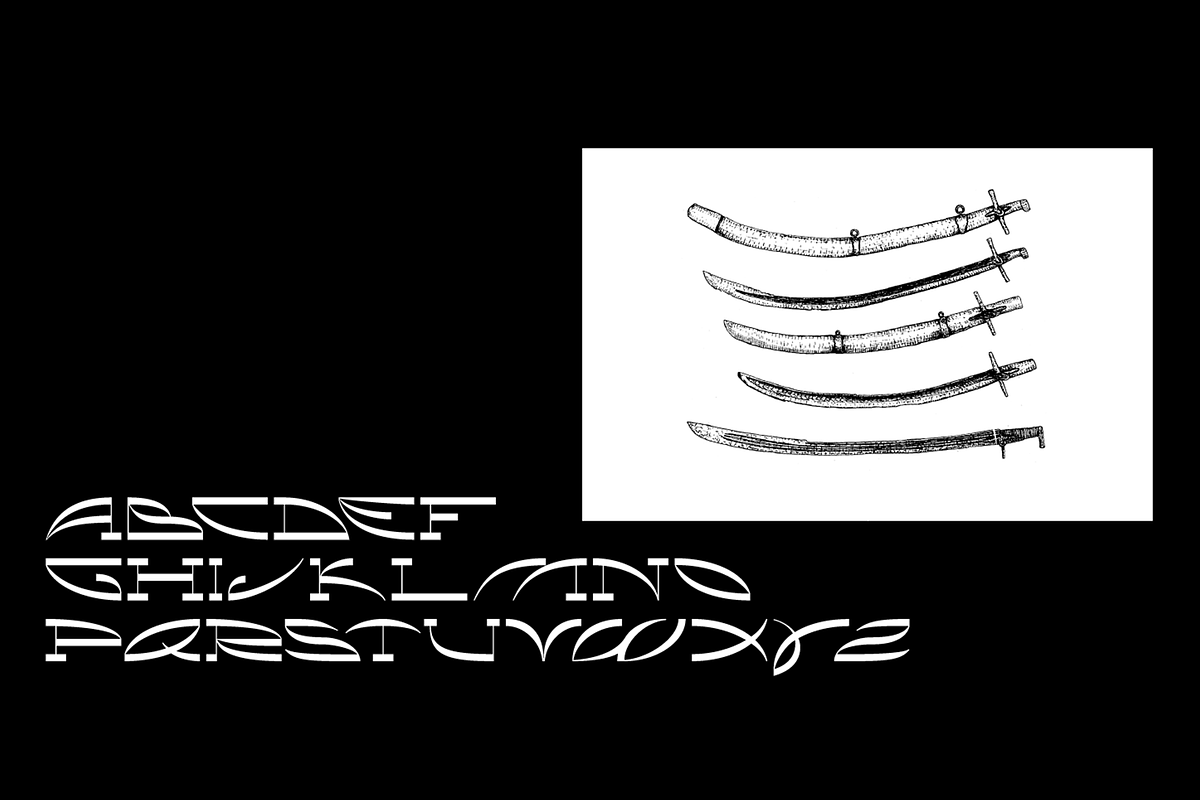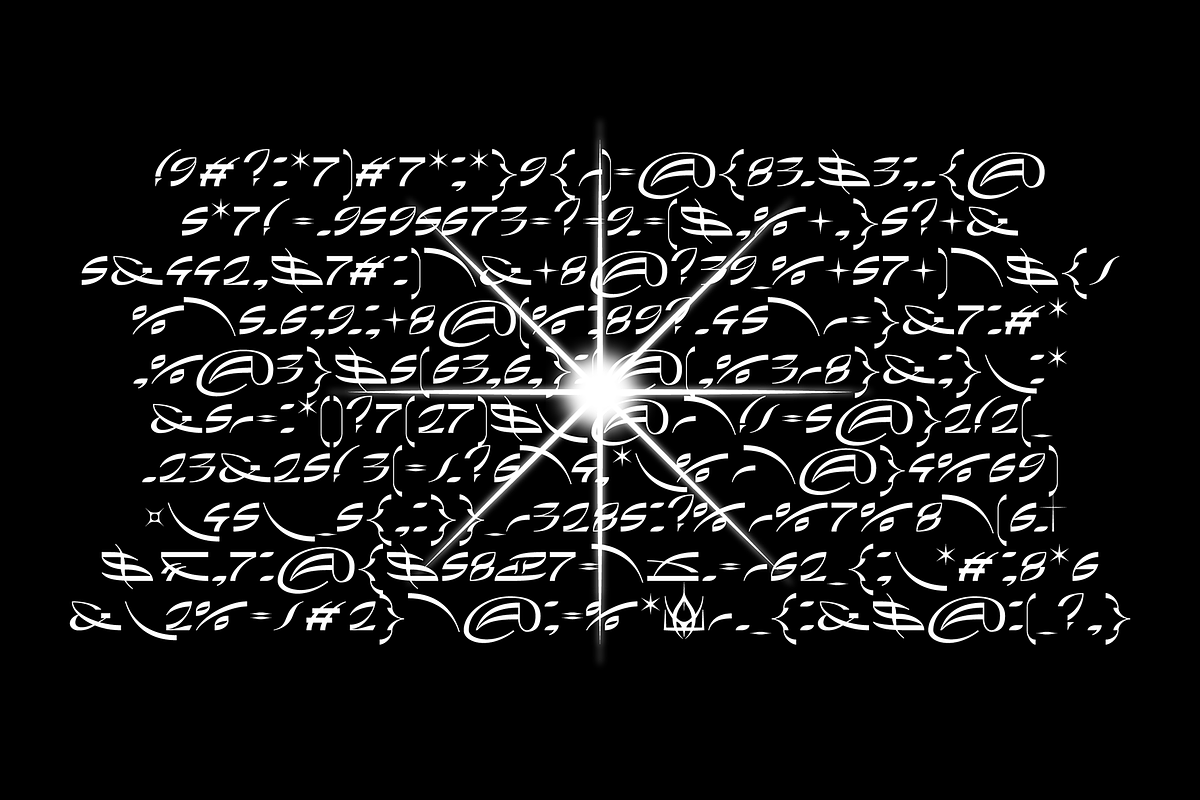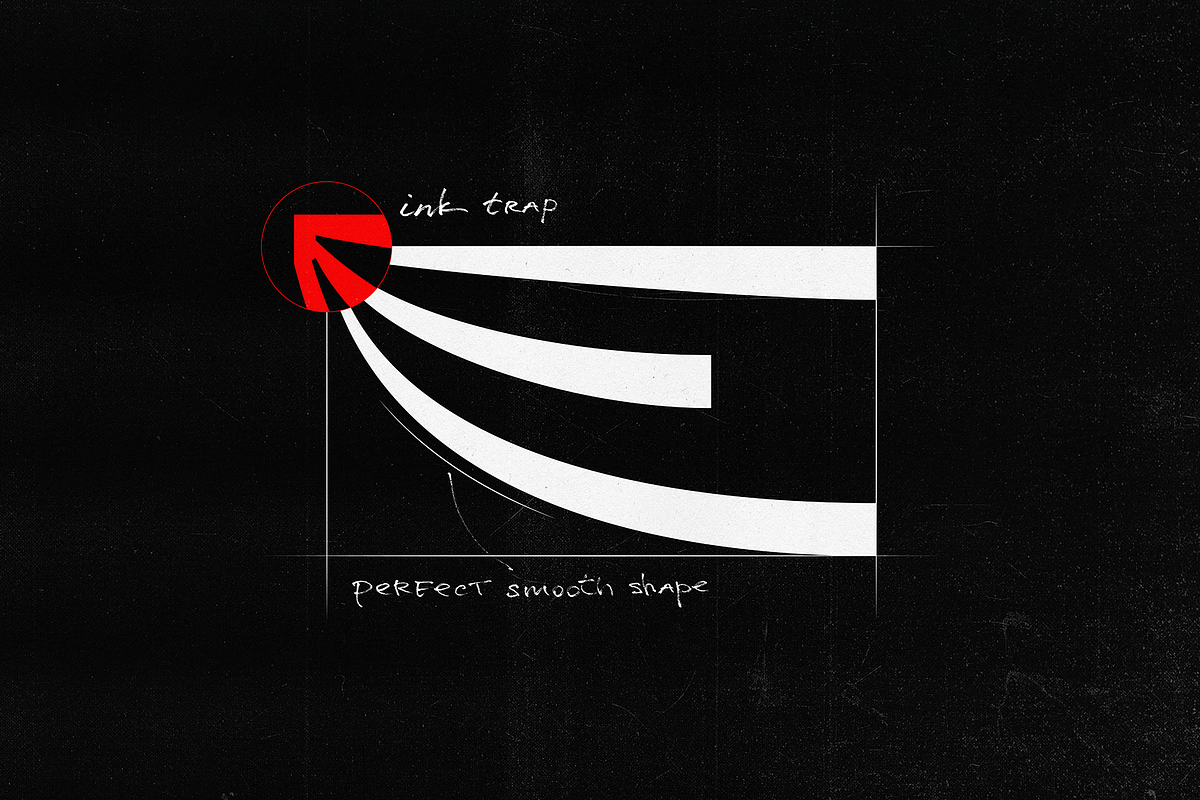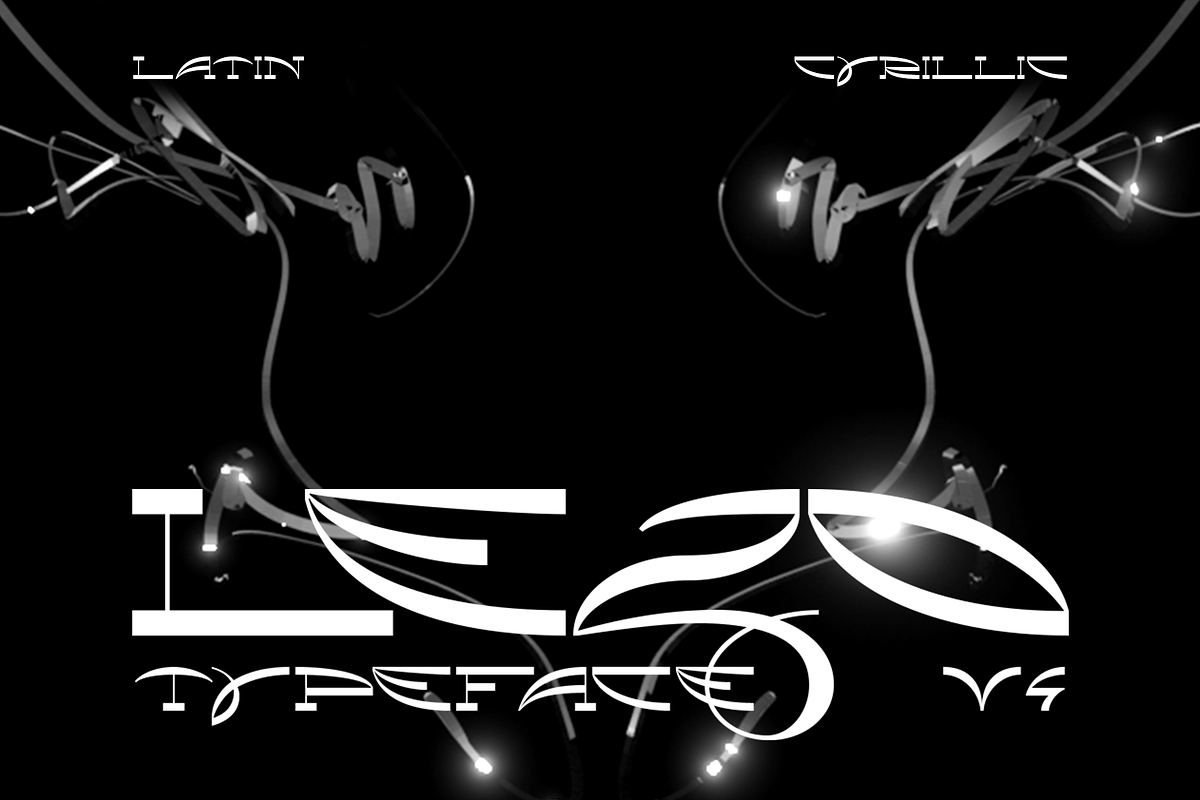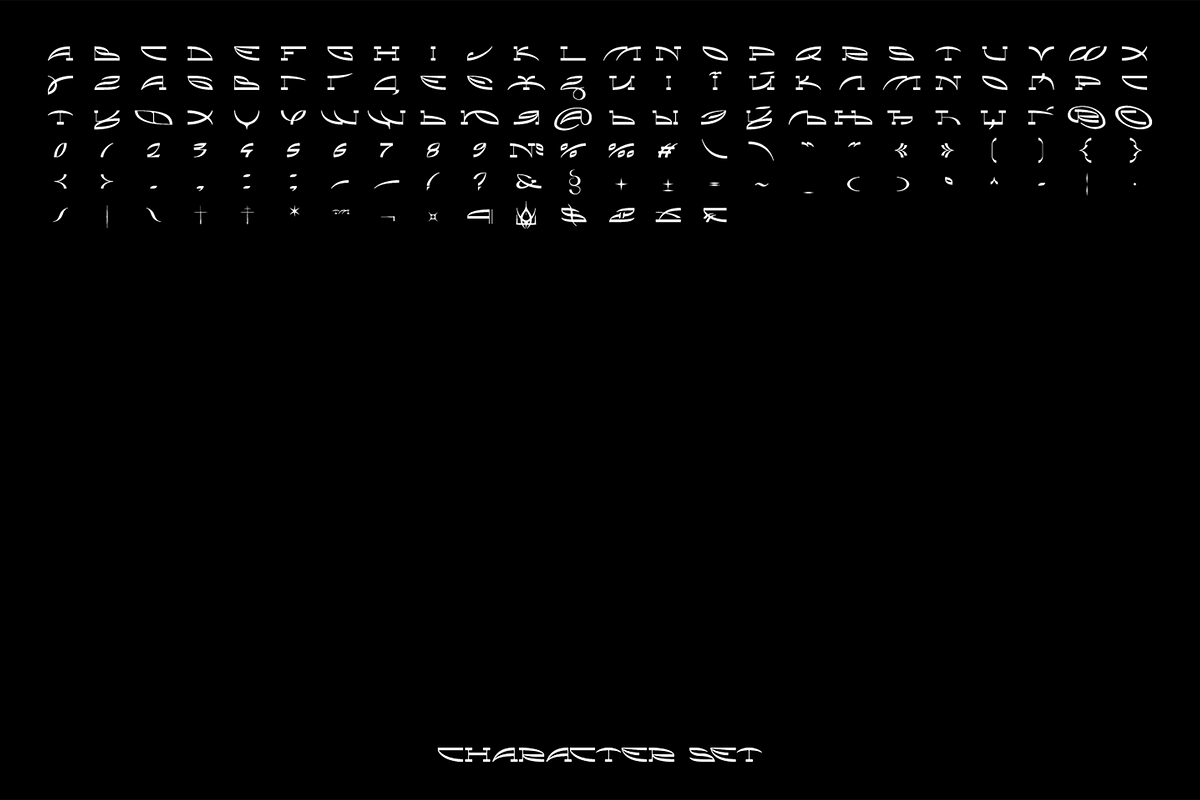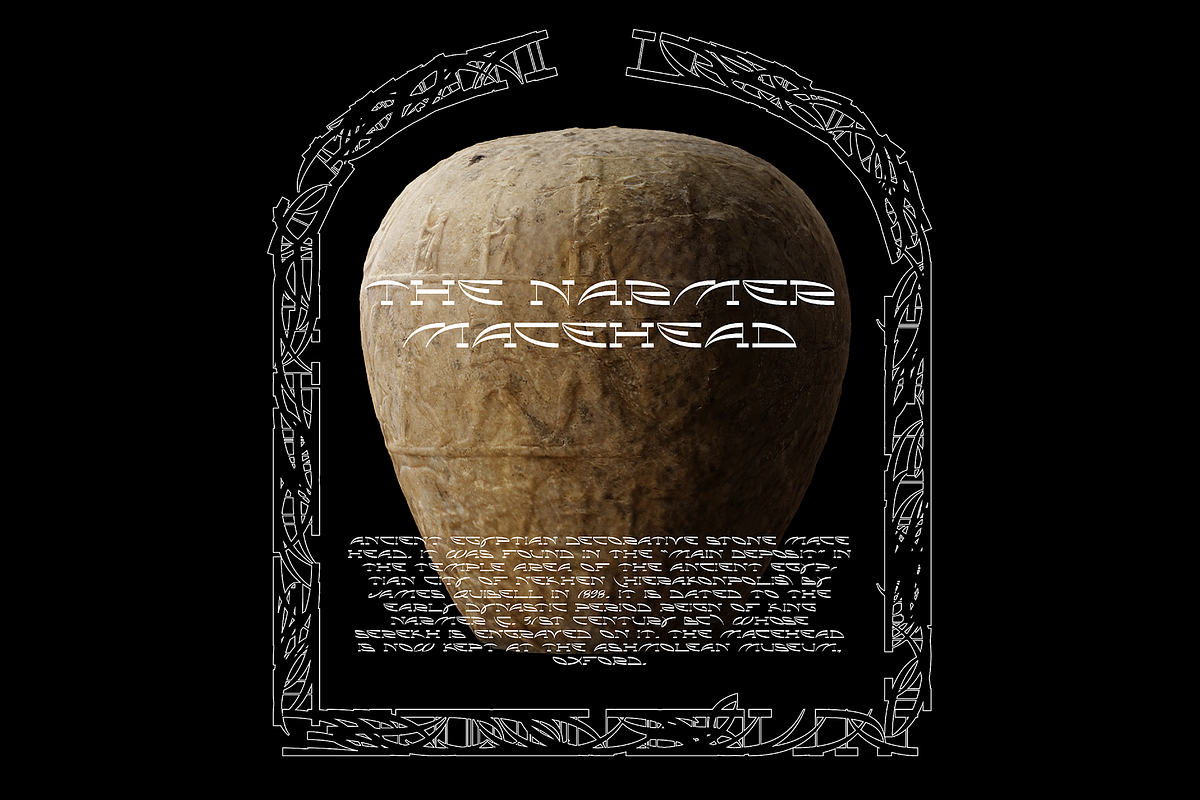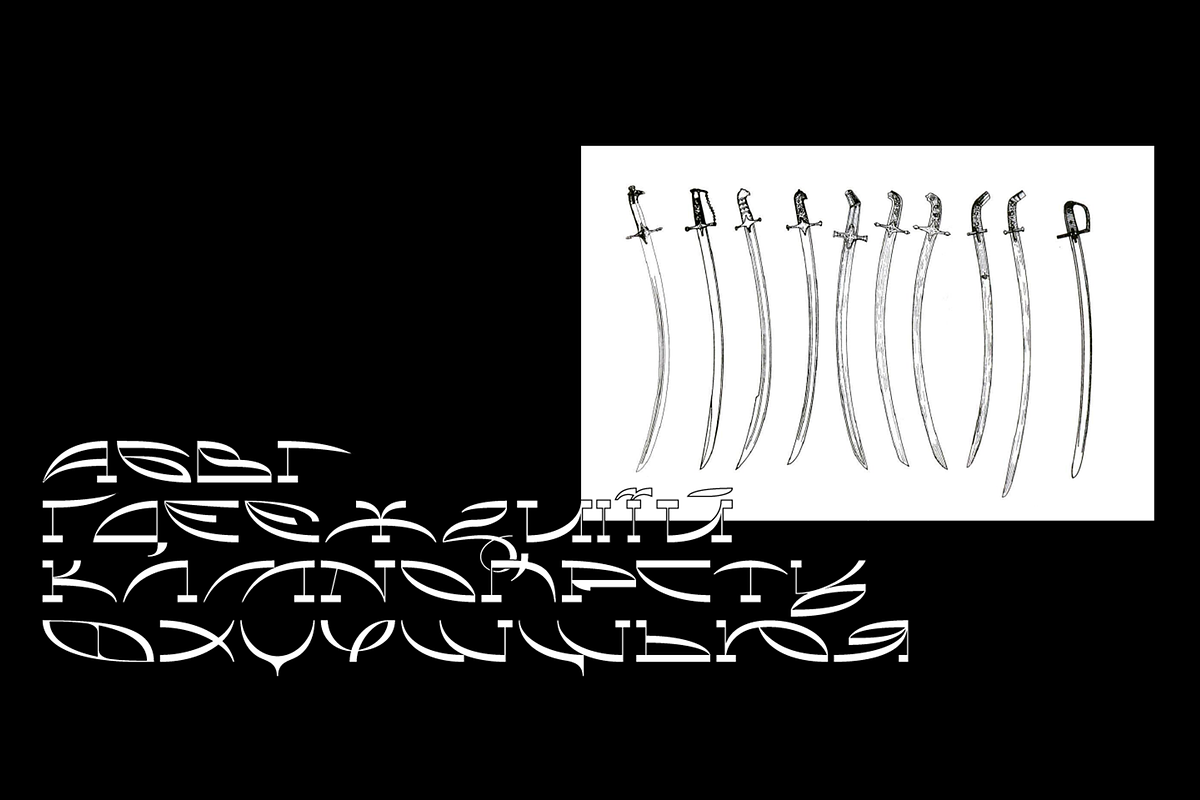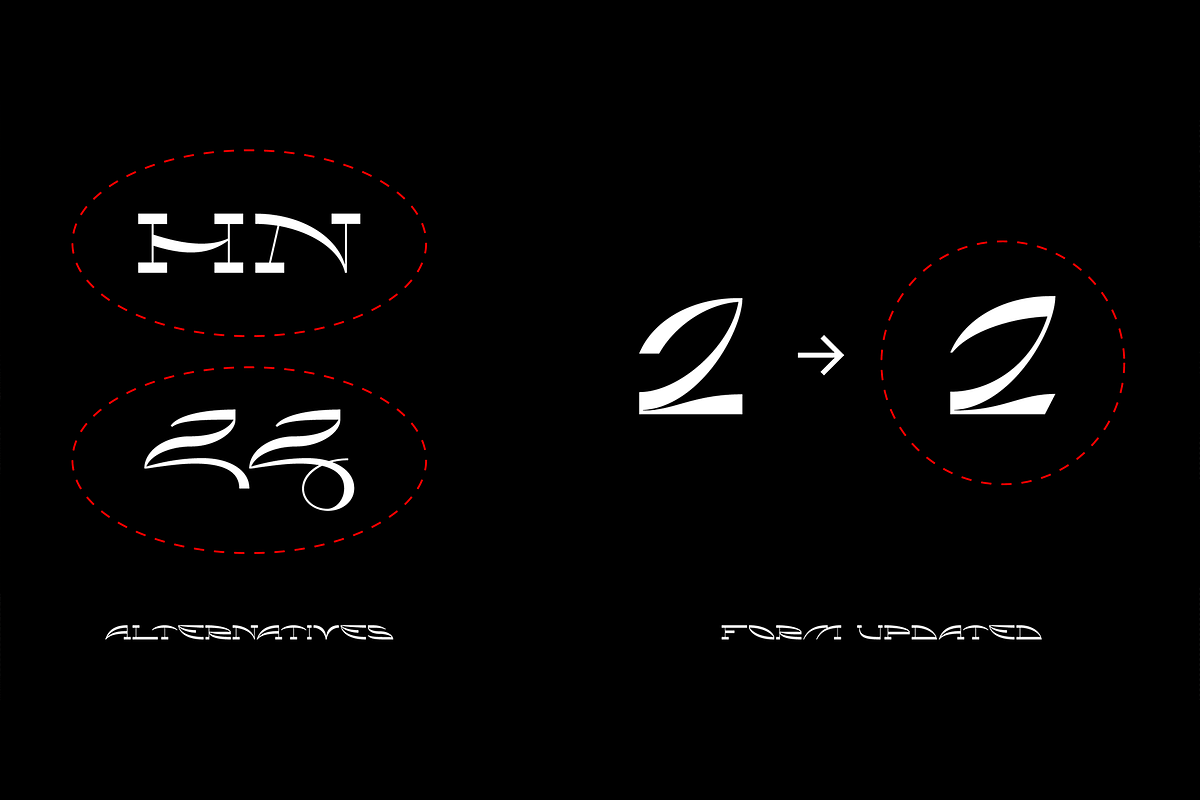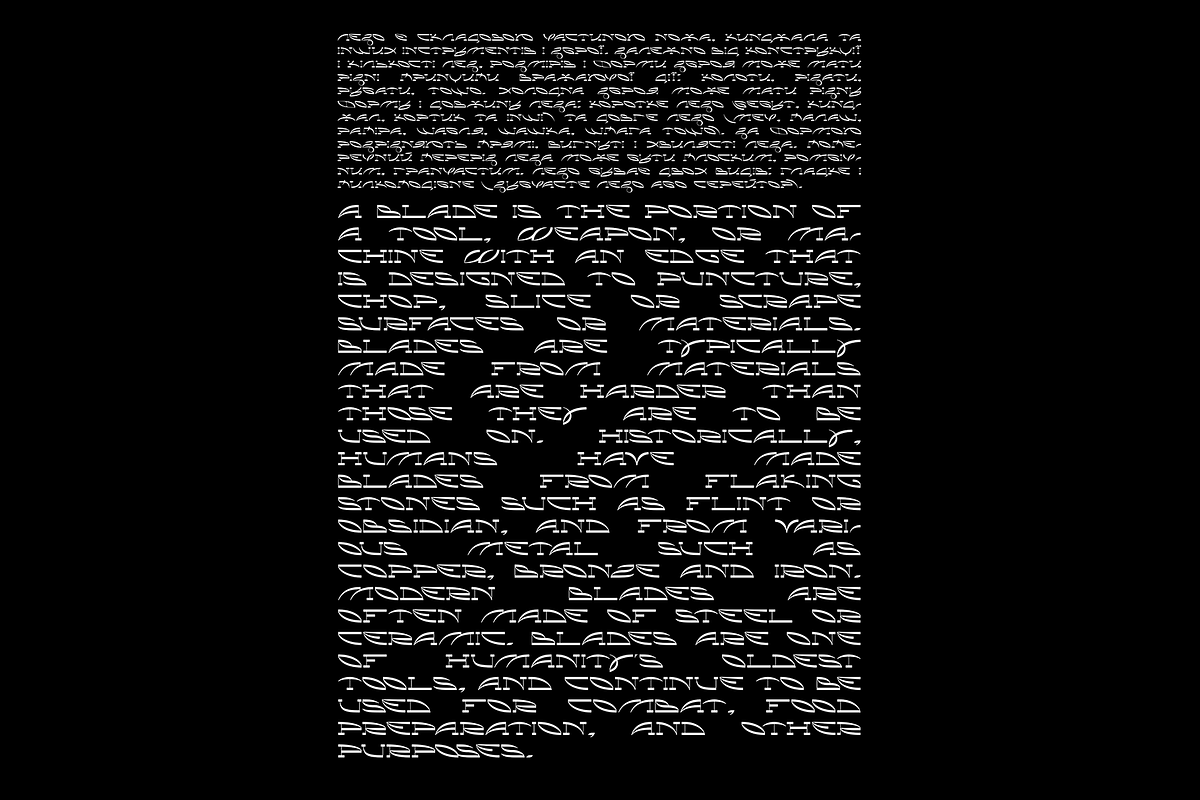
LEZO Typeface — Latin & Cyrillic
Lezo – is a futuristic display font with Ukrainian vibe, inspired by the forms of swords XV-XVIII centuries.
By definition, lezo means (a blade) is a sharp part of a sword, that is cut, pricked, or chopped. The goal was to create letters that become words to cut way in the unknown. Over time, the letters began to sharpen their forms, and that's what you see.
The font has high contrast, smooth and sharp shapes that create a unique ornament. The main feature is the use of various elements, such as the tail in "З", "Д", "Ц", they have been in Ukrainian historical letters. This font shows how interesting the Cyrillic is – enjoy.